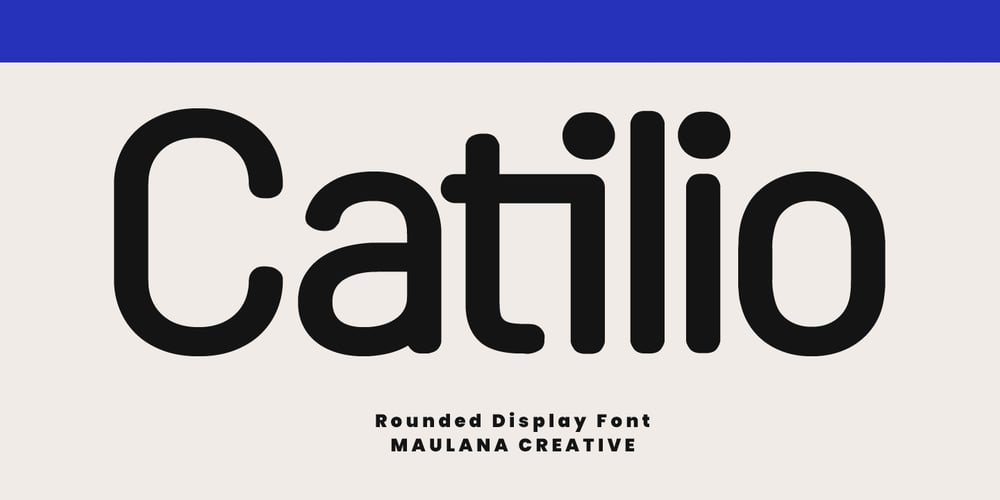
MC Catilio
MC Catilio font
MC Catilio Font Family was designed by Gilang Maulana and published by Maulana Creative. MC Catilio contains 1 styles and family package options. Catilio is a rounded sans serif display font. Awesome character with a ligatures. To give you an extra creative work. Catilio font support multilingual language. This font is good for logo design, Social media, Movie Titles, Books Titles, a short text even a long text letter and good for your secondary text font with sans or serif. Make a stunning work with Catilio font.Cheers,Maulana Creative